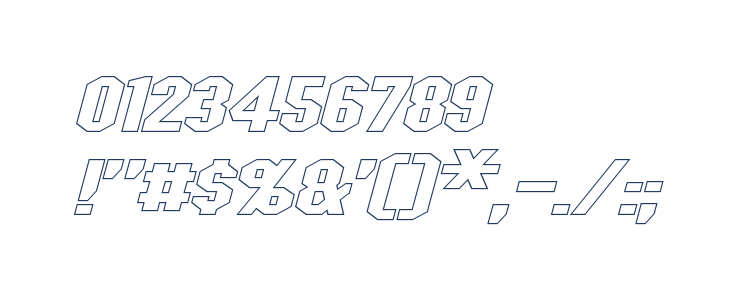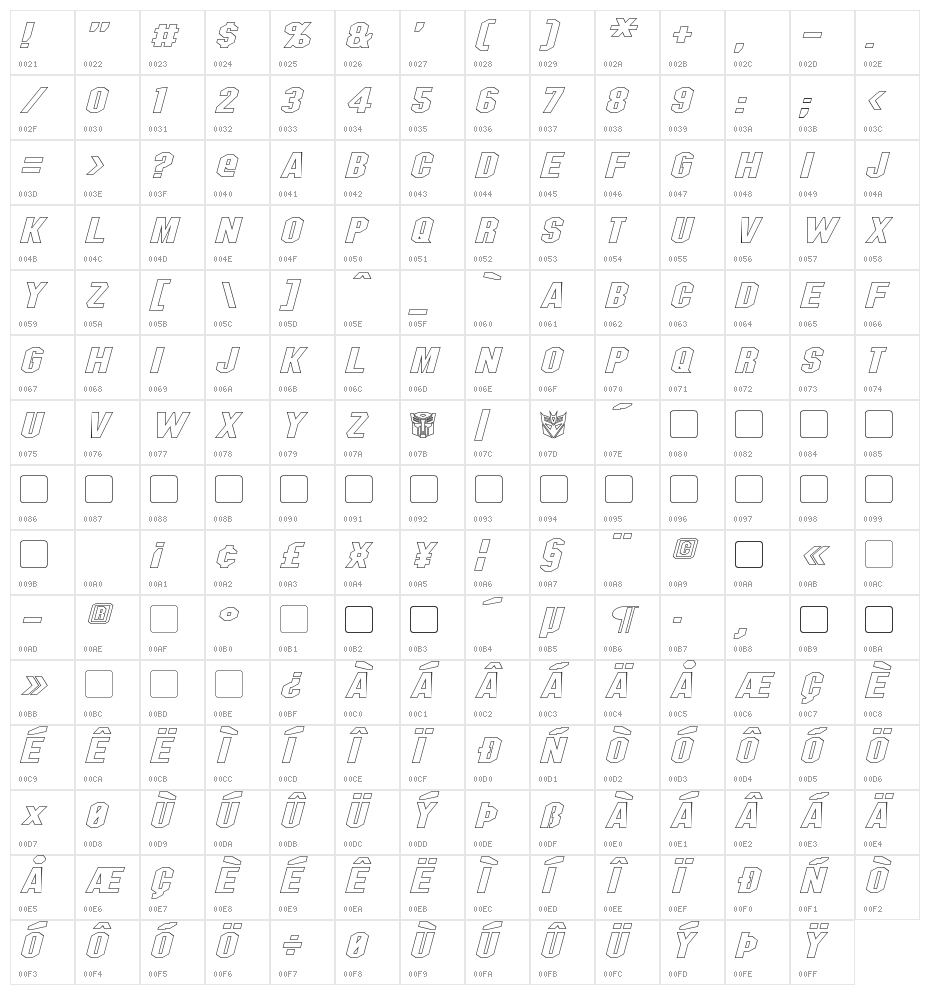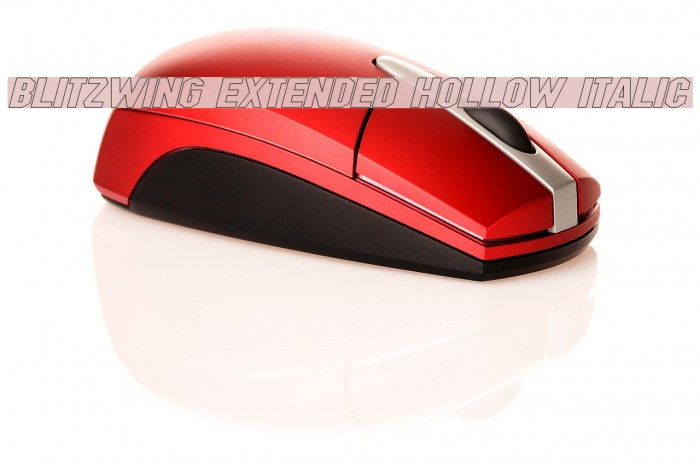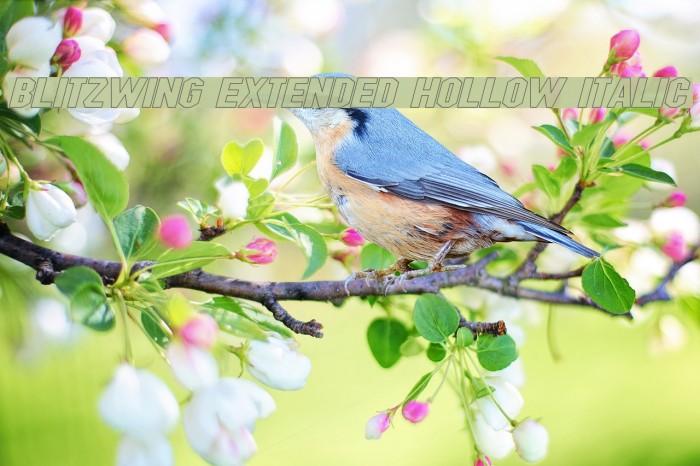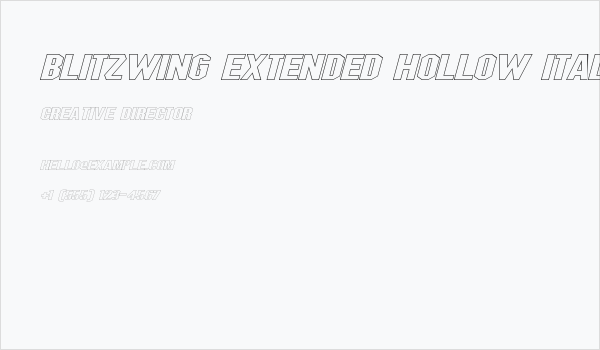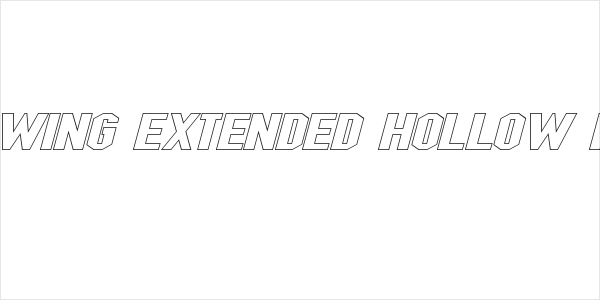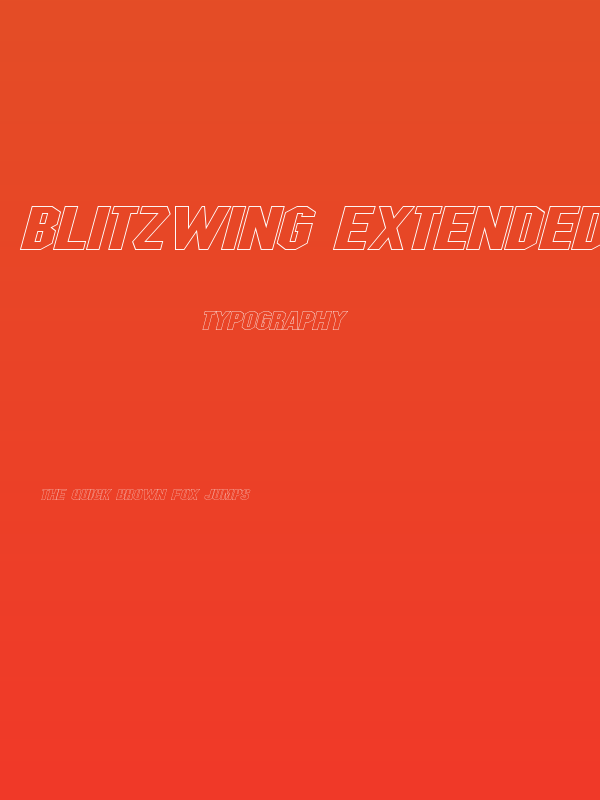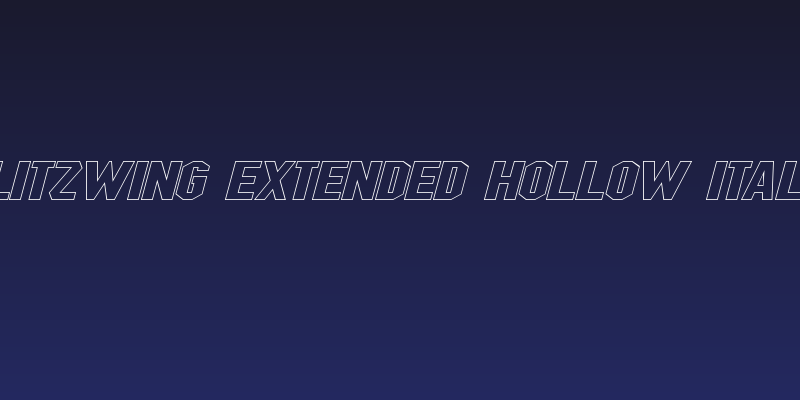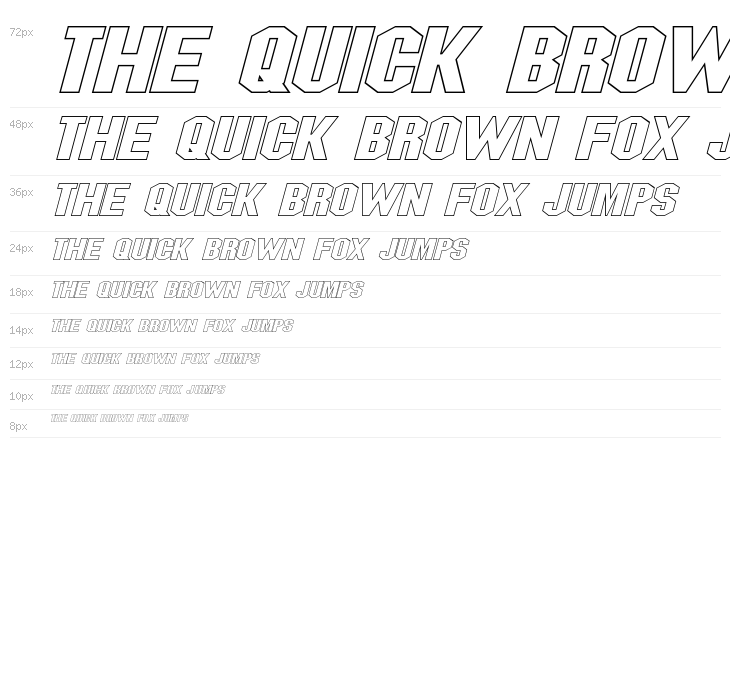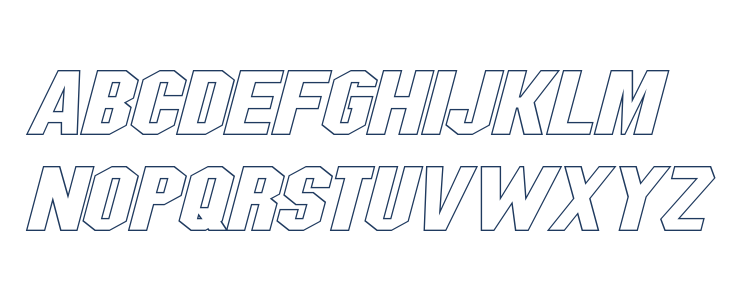
Blitzwing Extended Hollow Italic Font
Blitzwing Extended Hollow Italic Description
This font features a bold, hollow design with an extended width and italicized slant. The characters are outlined, creating a striking and modern appearance that emphasizes each letter's geometric structure. The uppercase and lowercase letters maintain a consistent style, with sharp angles and clean lines. The numbers and special characters follow the same design principles, ensuring uniformity across all glyphs. The font's hollow nature gives it a unique, airy feel, making it suitable for eye-catching displays and headlines.
| Proposed Projects | Ideal for futuristic branding, tech-related projects, posters, and digital media where a modern and bold statement is needed. |